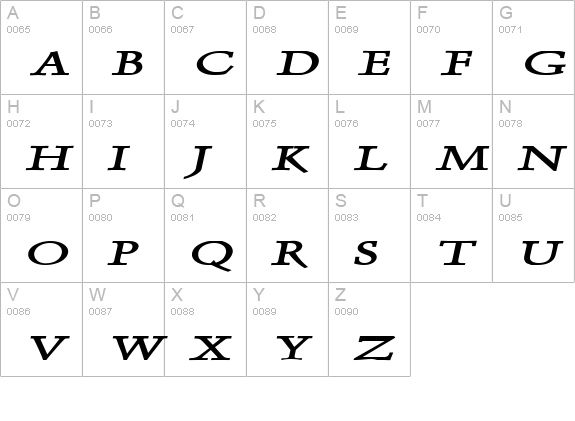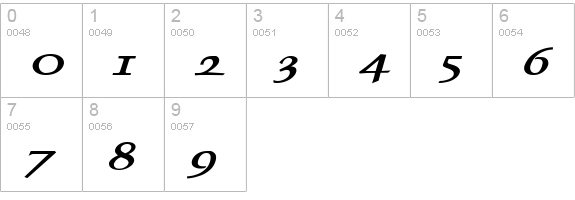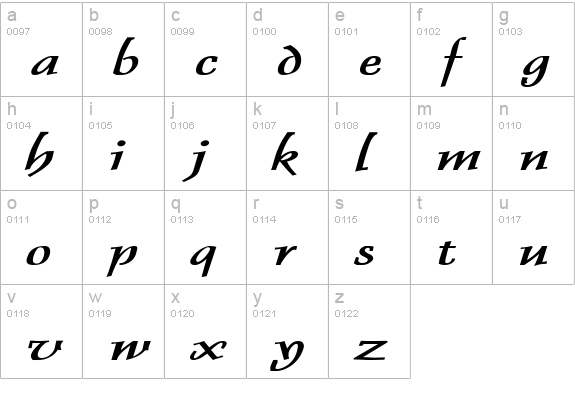
Dolphin Extended Bold Italic is a strong, high-contrast, extended-width, italic variant in the Dolphin typeface family \xE2\x80\x94 well suited to headlines, attention-grabbing titles, and strong calls-to-action.
Dolphin Extended Bold Italic font is a captivating and dynamic typeface that exudes a sense of elegance and modernity. With its sleek and stylish design, this font is perfect for creating eye-catching headlines, branding materials, and editorial designs. The bold and italic characteristics of Dolphin Extended give your text a strong and impactful presence on any project. The best part about Dolphin Extended Bold Italic font is that it is available for free download at FontsMarket.com. This means you can easily access this high-quality font and use it in your personal and commercial projects without any cost. Whether you're a professional designer or a casual creator, Dolphin Extended Bold Italic font is a versatile and attractive choice that will elevate your work to the next level.